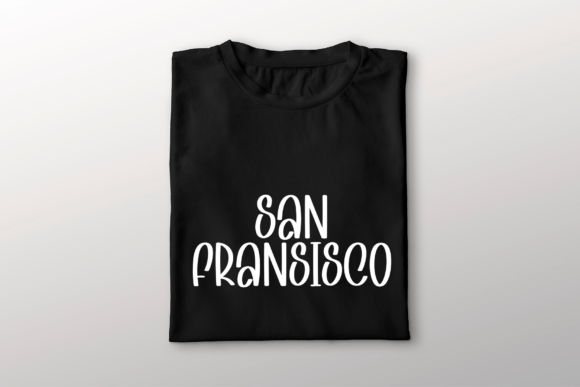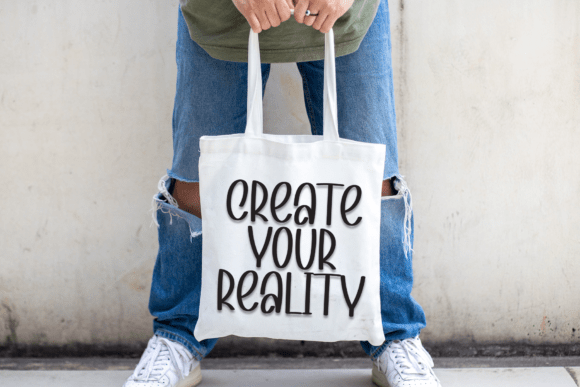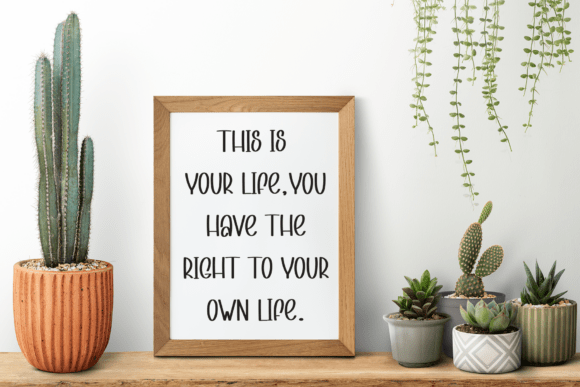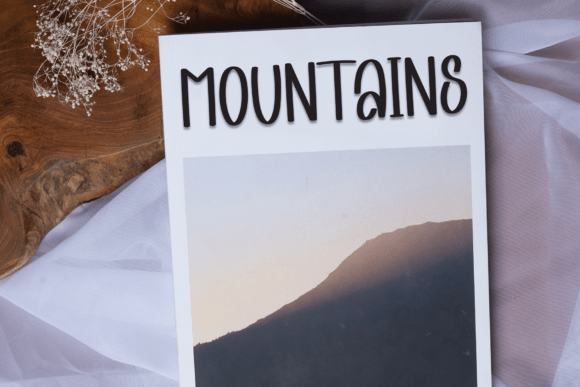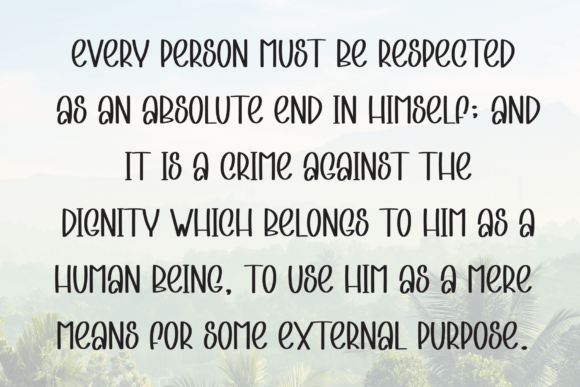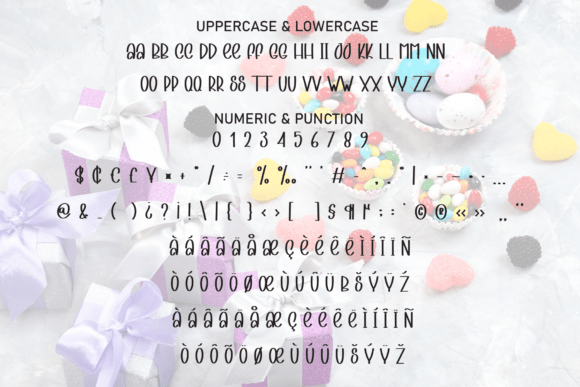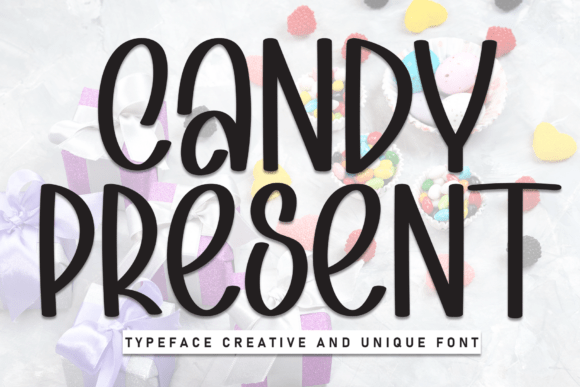
Candy Present Font: The Sweetest Addition to Your Design Projects
Are you looking for a font that can add a touch of warmth and approachability to your design projects? Look no further than the Candy Present Font! This casual and neat display font is designed to bring a sense of clarity and friendliness to your branding, headlines, and everyday designs.
Clean Structure, Approachable Style
The Candy Present Font boasts a clean structure that makes it easy to read and understand. Its approachable style is perfect for designers and crafters who want to create a sense of connection with their audience. Whether you’re working on a logo, brochure, or social media post, this font is sure to make your message feel genuine and inviting.
Balanced Letterforms for Readability and Charm
One of the standout features of the Candy Present Font is its balanced letterforms. Each letter is carefully crafted to offer the perfect balance of readability and charm. This makes it ideal for use in a variety of design projects, from headings and titles to body copy and captions.
Perfect for Branding and Headlines
The Candy Present Font is particularly well-suited for branding and headlines. Its clean and approachable style makes it easy to create eye-catching titles that draw the reader in. Plus, its balanced letterforms ensure that your message is clear and easy to understand.
Everyday Designs Made Easy
But the Candy Present Font isn’t just limited to big projects like branding and headlines. It’s also perfect for everyday designs like social media posts, flyers, and brochures. Its friendly and approachable style makes it easy to create designs that feel welcoming and inclusive.
What Makes Candy Present Font Special?
• Clean and neat design: The Candy Present Font features a clean and neat design that’s perfect for creating clear and easy-to-read text.
• Approachable style: Its approachable style makes it easy to create designs that feel friendly and welcoming.
• Balanced letterforms: The balanced letterforms offer the perfect balance of readability and charm.
• Versatile: The Candy Present Font is versatile and can be used in a variety of design projects, from branding and headlines to everyday designs.
How to Use Candy Present Font in Your Designs
• Use it for headings and titles: The Candy Present Font is perfect for headings and titles, but you can also use it for body copy and captions.
• Experiment with colors: The Candy Present Font looks great in a variety of colors, so don’t be afraid to experiment and find the perfect hue for your design.
The Candy Present Font is a sweet addition to any design project. Its clean structure, approachable style, and balanced letterforms make it perfect for creating clear and easy-to-read text. Whether you’re a designer or crafter, this font is sure to become a favorite in your toolkit. So why wait? Download the Candy Present Font today and start creating designs that feel genuine and inviting!